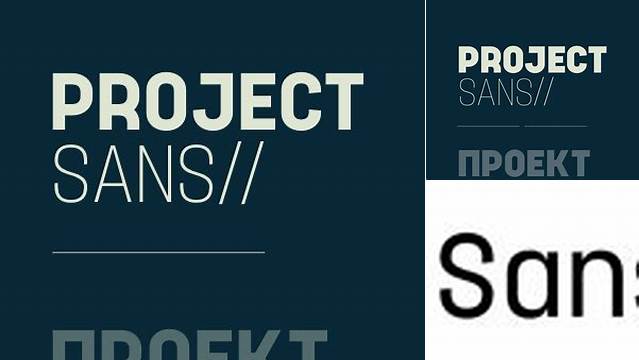
Understanding Project Sans Regular
Project Sans Regular is a widely appreciated font known for its clean lines and versatility. Its neutral design makes it suitable for a variety of applications, from branding and advertising to editorial design and web content. Guys, if you're looking for a font that provides a modern yet approachable feel, Project Sans Regular might just be your perfect match. This font has been carefully crafted to ensure readability across different media, making it a reliable choice for both print and digital platforms. Its balanced letterforms and consistent strokes contribute to a harmonious visual experience, enhancing the overall aesthetic of your projects. Whether you're designing a sleek corporate website or a captivating marketing brochure, Project Sans Regular can help you achieve a professional and polished look. Think of it as the reliable friend in your font library—always there to deliver a solid performance. Moreover, its wide character set supports multiple languages, making it a globally accessible option for diverse projects. So, next time you're brainstorming design ideas, remember that Project Sans Regular is a versatile tool that can elevate your work to new heights.
Utilizing Project Sans Regular in Design Projects
Once you've got Project Sans Regular installed, unleash its potential in your design projects. This font is incredibly versatile, fitting seamlessly into various contexts. Try it for headings, body text, or even logos.
For headings, its clean and modern appearance can grab attention and convey a sense of sophistication.
In body text, its excellent readability ensures that your message is clear and easy to understand.
And for logos, its balanced letterforms can create a memorable and professional brand identity. Experiment with different font sizes, weights, and styles to find the perfect combination for your specific needs. Consider pairing Project Sans Regular with other fonts to create visual contrast and hierarchy. For example, you could use it for headings and pair it with a serif font for body text to create a classic and elegant look. Or, you could combine it with a bolder sans-serif font to create a more modern and dynamic feel. The possibilities are endless, so don't be afraid to experiment and push the boundaries of your creativity.
Project Sans Regular vs. Other Sans-Serif Fonts
How does Project Sans Regular stack up against other sans-serif fonts? Let's break it down. While fonts like Helvetica and Arial are classic choices, Project Sans Regular offers a slightly more contemporary feel. Its subtle design nuances set it apart, making it a great alternative for those seeking a fresh perspective. Compared to Roboto, which has a more geometric appearance, Project Sans Regular is more organic and approachable. And when compared to Open Sans, it offers a slightly more refined and polished look. Ultimately, the best font for your project depends on your specific needs and preferences. Experiment with different fonts to see which one best complements your design. Consider the overall tone and message you want to convey, and choose a font that aligns with your vision. Project Sans Regular is a versatile option that can work well in a variety of contexts, but it's always a good idea to explore other options to find the perfect fit.
Project Sans Regular for Web Design
Project Sans Regular for Print Design
Project Sans Regular isn't just for the web; it shines in print design too. From brochures to business cards, its versatility makes it a reliable choice for various print materials. When using Project Sans Regular in print, ensure that the font is properly embedded in your document to avoid font substitution issues. This is especially important when sending your files to a commercial printer. Choose a font size that is appropriate for the intended audience and the reading distance. Use a high-resolution version of the font to ensure that it prints clearly and sharply. Experiment with different font weights and styles to create visual hierarchy and emphasis. Consider using Project Sans Regular for headings, body text, and captions to create a cohesive and professional look. And don't forget to proofread your document carefully before sending it to print to catch any errors or inconsistencies. By following these tips, you can ensure that your print materials look their best with Project Sans Regular.
Conclusion: Embracing Project Sans Regular
So, there you have it! Project Sans Regular is a versatile, reliable, and aesthetically pleasing font that can enhance your design projects. Download it, experiment with it, and let it inspire your creativity. And remember to always respect font licensing and contribute to the design community. With Project Sans Regular in your toolkit, you'll be well-equipped to create stunning designs that are both visually appealing and easy to understand.